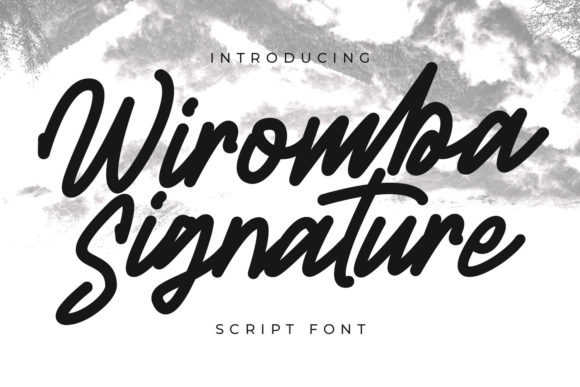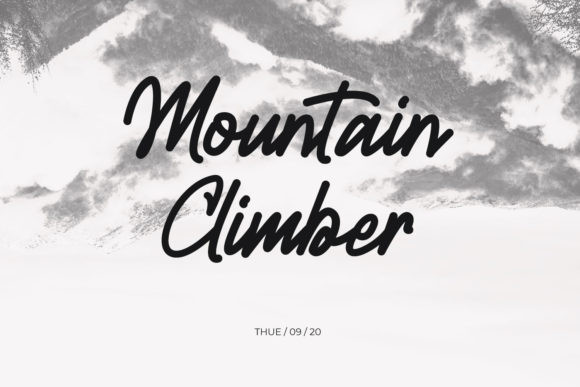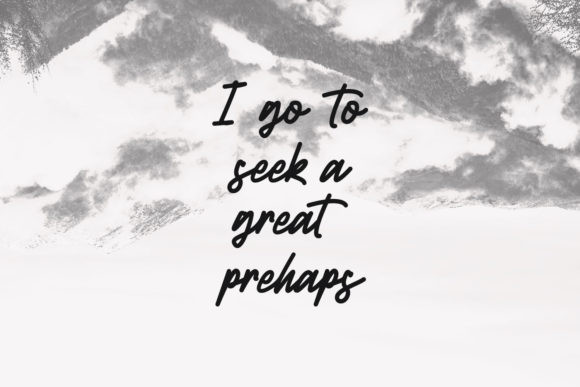
Wiromba Font
Wiromba is a casual handwritten font. This font is perfectly suited to signature, stationery, logo, typography quotes, magazine or book cover, website header, clothing, branding, packaging design and more.